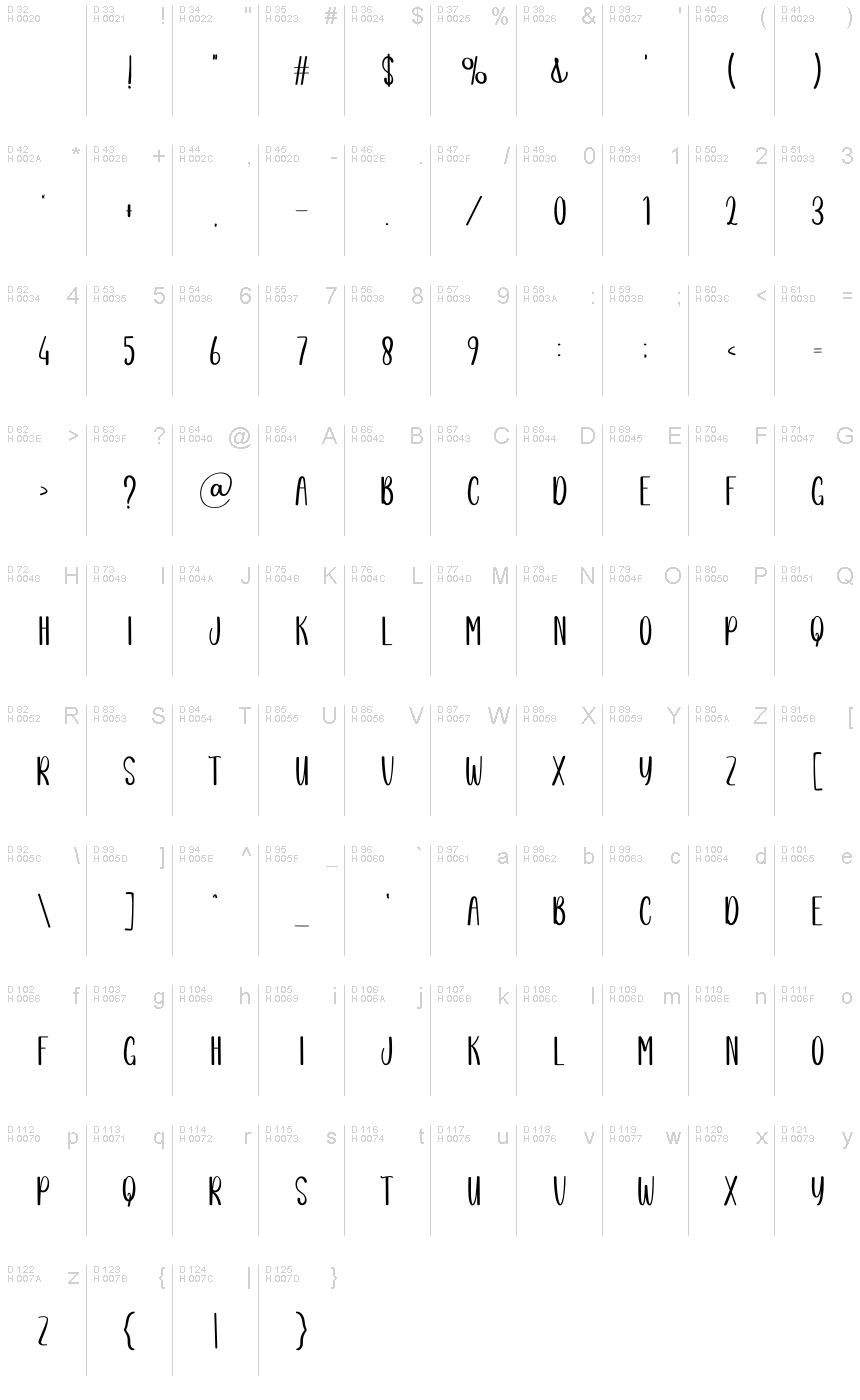
Designer Creative
Designer Creative, crafted by Scratchones, is a handwritten font that carries the distinct flair of personal touch. Its semi-light weight lends an airy, unburdened feel to the script, while its extra-condensed width offers a unique compactness that sets it apart from more traditional handwritten fonts. This blend of lightness and compression makes Designer Creative exceptionally versatile, ideal for projects where space is at a premium but style cannot be compromised.
Its aesthetic appeal lies in its balance between readability and artistic expression. With each character showcasing individual personality, this font exudes a casual yet professional charm. From branding to editorial design or any creative endeavor that calls for a hint of the personal hand without losing sophistication, Designer Creative stands ready to elevate your project with its distinctive character.